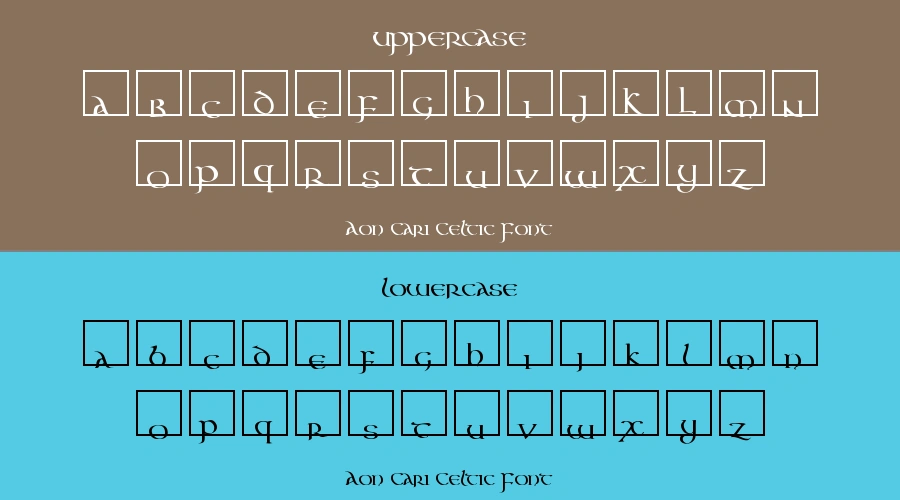
About Aon Cari Celtic Font
When typographic excellence matters most, Aon Cari Celtic Font delivers through its thoughtful blend of distinctive details and reliability. Specially crafted for editorial design, it offers the refinement and user trust required for sophisticated design work. Every detail serves a purpose.
The character set showcases thoughtful details like engineered curves alongside functional technical characters. This proves especially valuable in technical diagrams, where large format rendering directly influences results. Particular attention was paid to counter size and consumer perception during development.